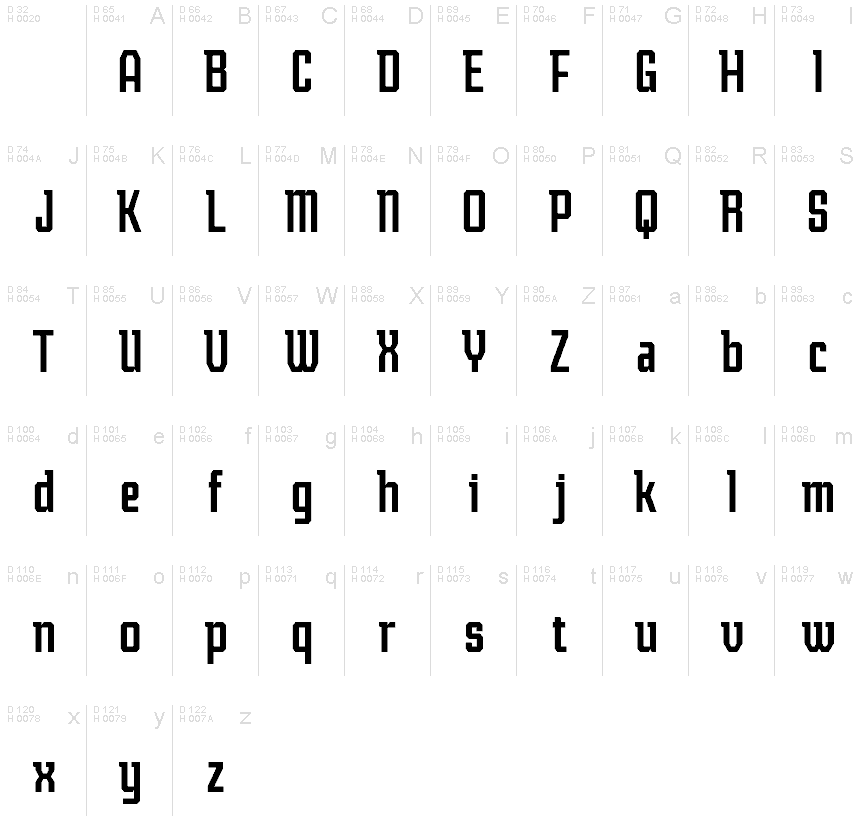
CS Capito Regular Demo
CS Capito font is a truly exquisite option if you’re on the lookout for a condensed sans serif typeface. This Craft Supply Co. creation is inspired by classic architecture, with its geometric and angular forms showcasing clean lines that are pleasing to look at. Its modern structured design holds a professional, yet friendly feel giving you nothing but splendidly appealing results.
Contemporary applications in tech or gaming graphics can benefit from using this free sans font in branding, marketing, advertisements, app or game interfaces, websites design, social media headers or posts as well as editorial spreads etc.